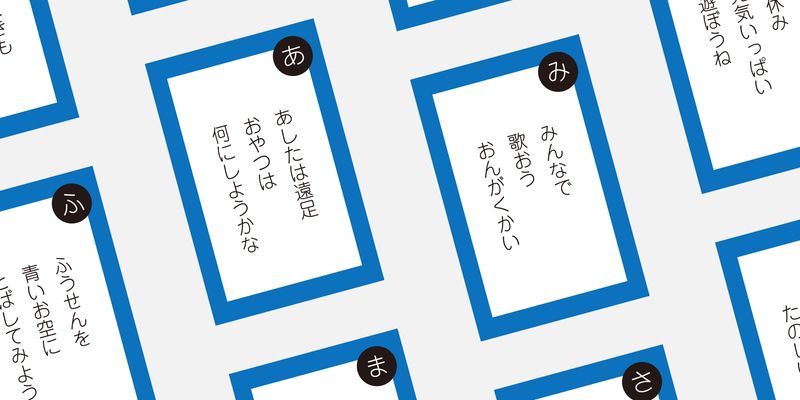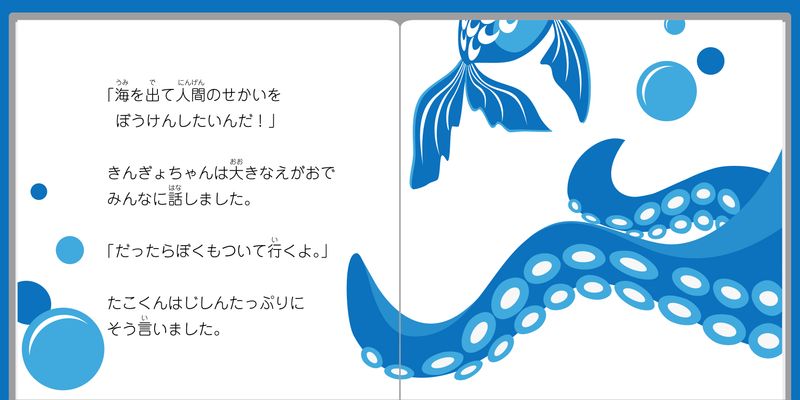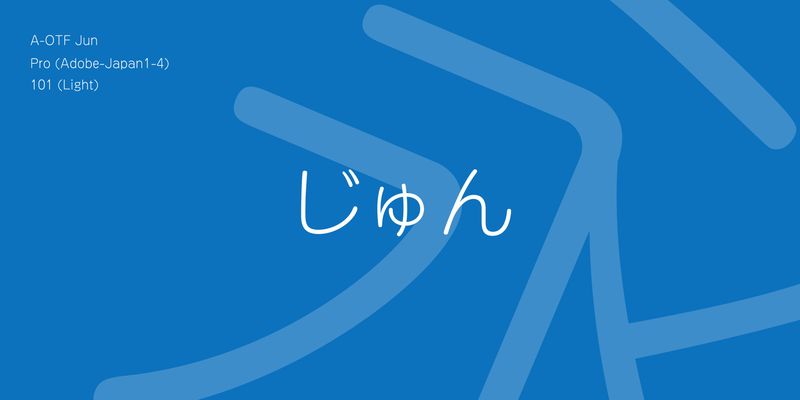
Jun is a rounded sans serif type  ideal to add a soft touch to the text. It has an approachable design characterized by gentle, rhythmic curves reminiscent of handwriting and the harmonious balance between stroke weights and round terminals. Its wide structure to ensure readability also allows one’s gaze to flow without obstruction. The type is effective in various ways, such as using Jun 101 and 201 for the body text of picture books and magazines, and Jun 34 and 501 for headlines and title logos.